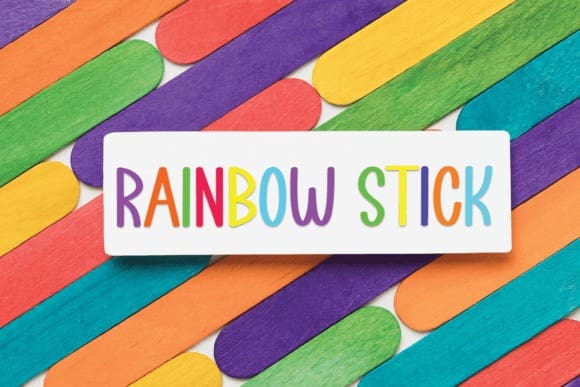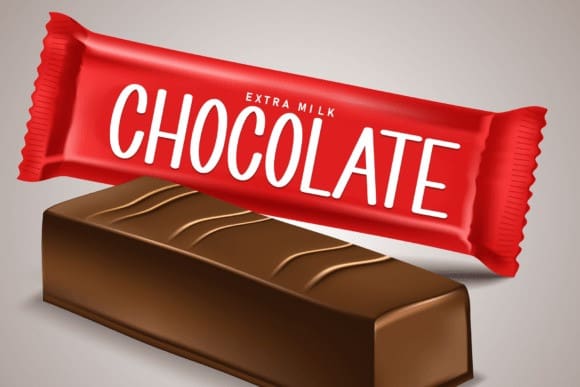
Cartoon Box Font
Cartoon Box Font is a sweet and friendly handwritten font. Its natural and unique
style makes it incredibly fitting to a large pool of designs. The only limit is your imagination!